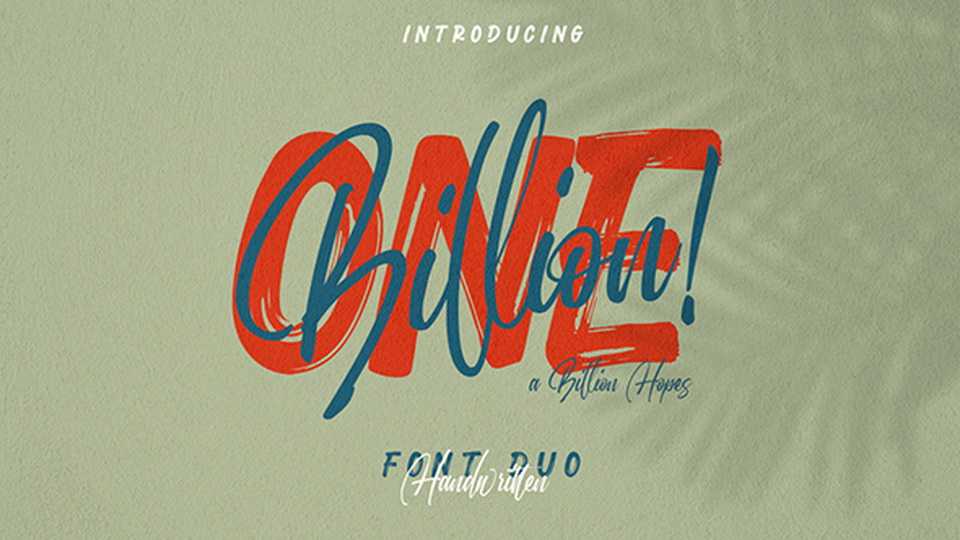
Download Onebillion, a bold hand lettered font duo to add a stylish punch to your designs. Onebillion font offers you a multitude of possibilities in your professional type design projects.
Designer: Topan Sofyan